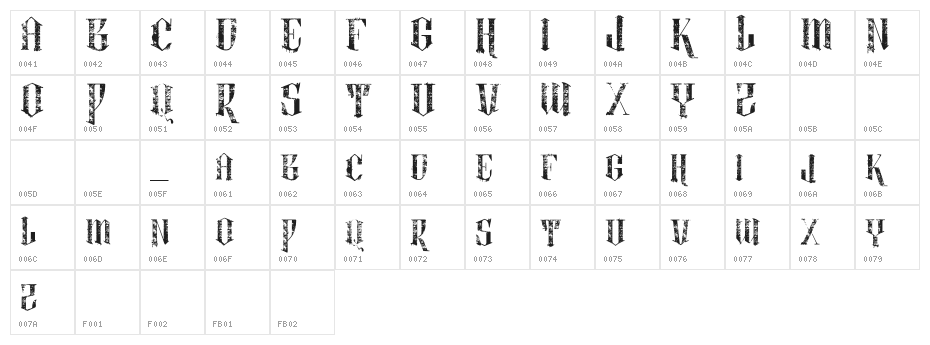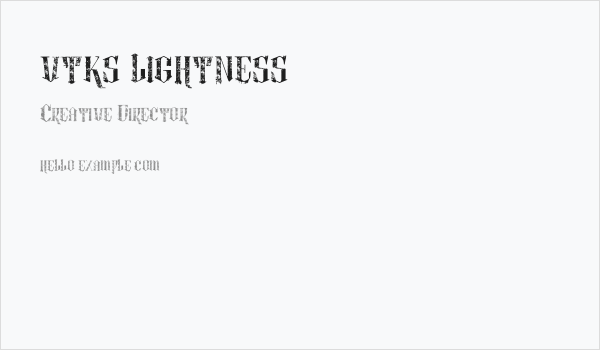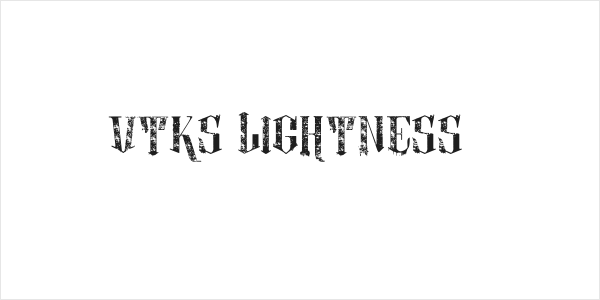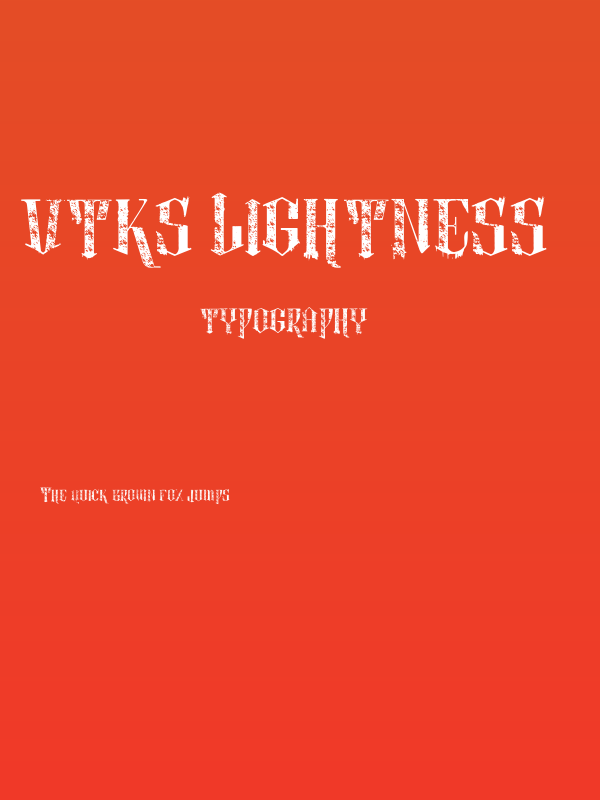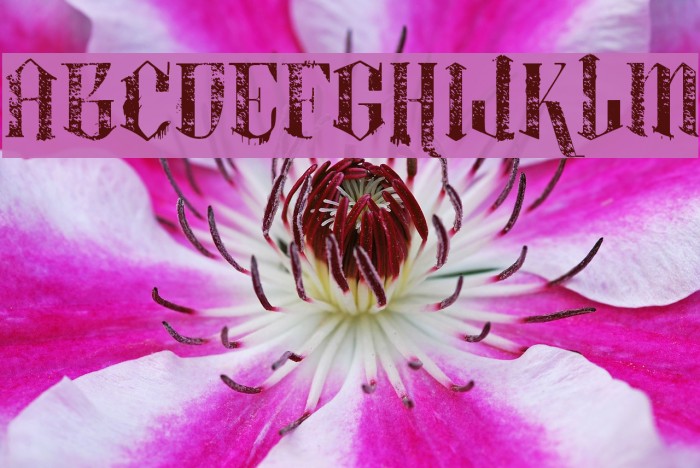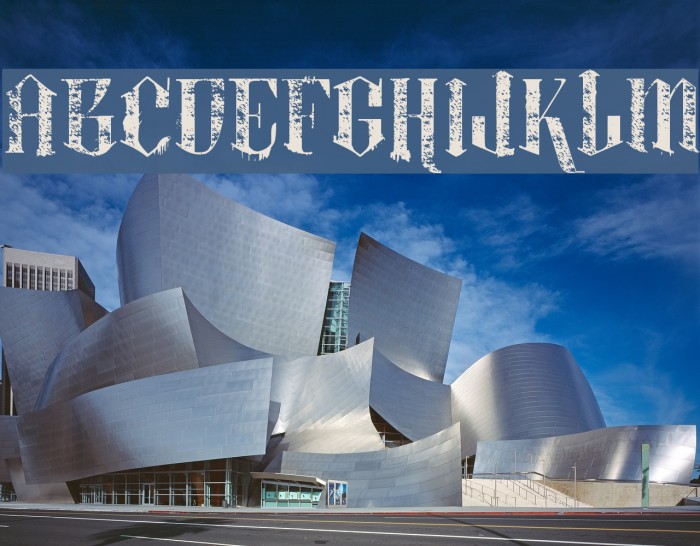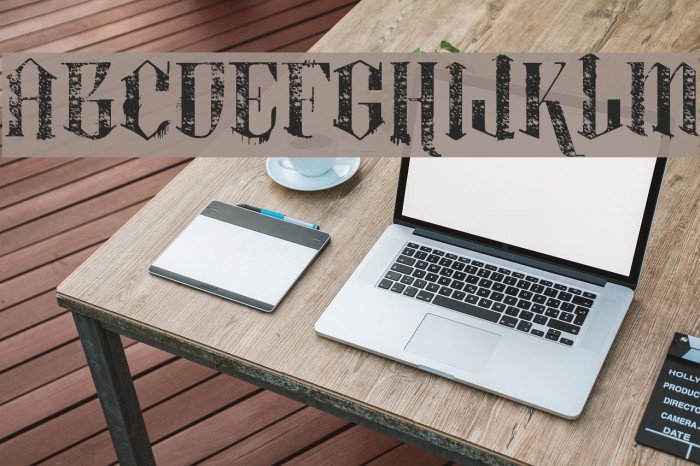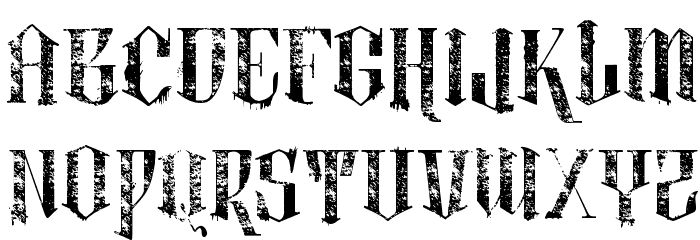
vtks lightness 2 Font
vtks lightness 2 Description
This font features a bold and distressed style, characterized by its rough, textured appearance that gives it a grungy and edgy feel. The letters are uppercase with a blocky structure, and the texture appears as if the ink is splattered or eroded, adding a dynamic and rugged look. This design is reminiscent of urban street art or worn-out signage, making it stand out with its unique and artistic flair. The font's boldness and texture make it ideal for projects that require a strong visual impact.
| Overall Style | Grunge, Urban, Edgy |
| Proposed Projects | Ideal for album covers, posters, streetwear branding, or any project needing an edgy, urban aesthetic. |